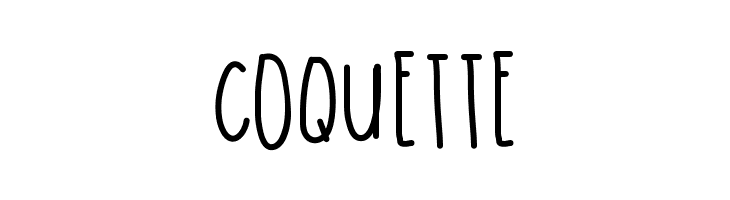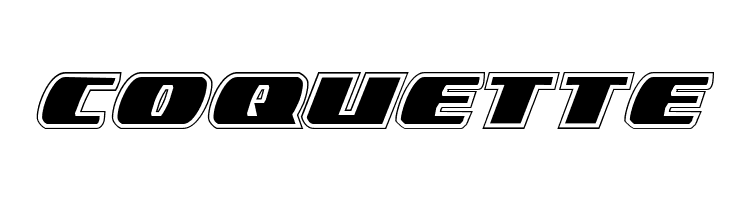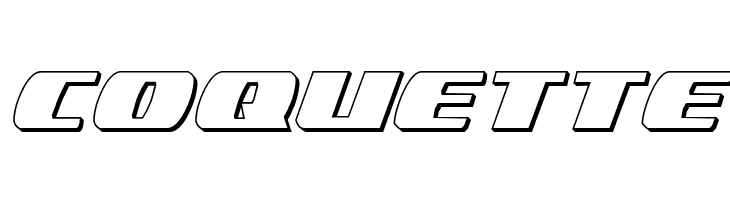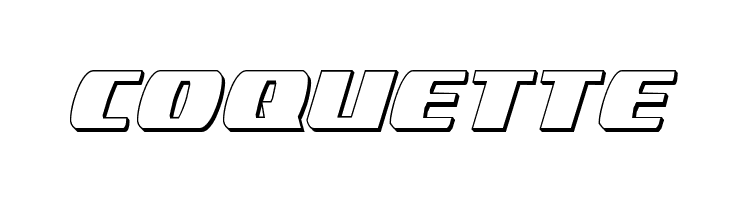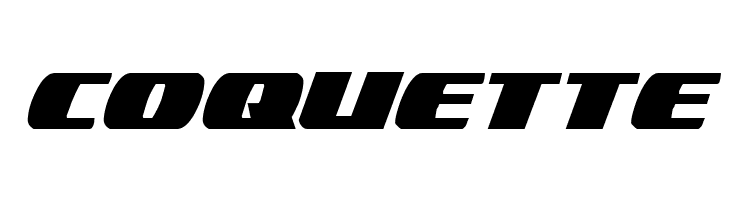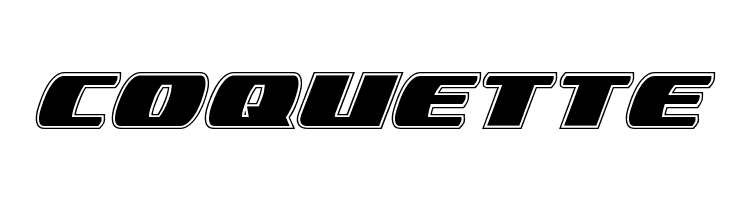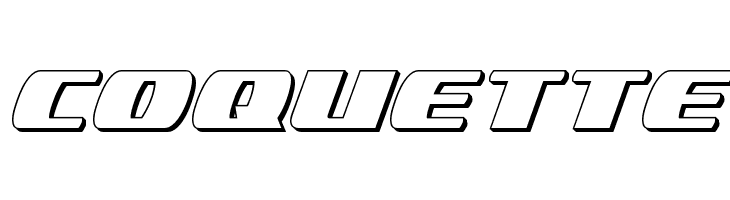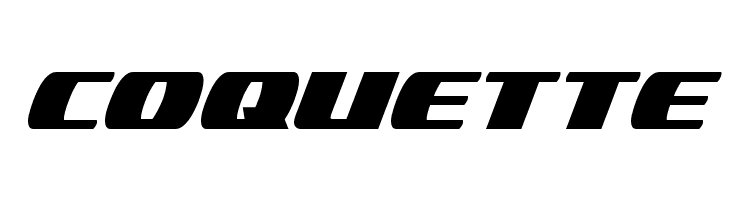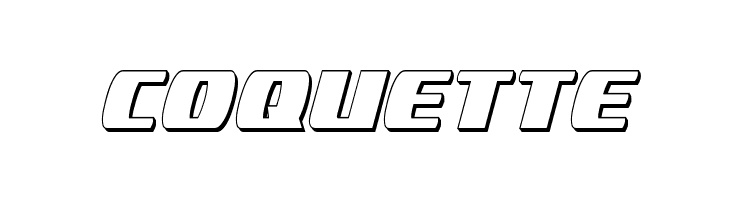
A playful handwritten font with tall, narrow letters and a casual style.
A bold, slanted font with a dynamic and modern style.
A bold, 3D outlined font with a modern, geometric style.
A bold, 3D, condensed font with a modern geometric design.
A bold, 3D, expanded font with geometric and angular design.
A bold, 3D, extra-condensed font with outlined characters and a modern, angular style.
A bold, 3D font with a futuristic and dynamic style.
A bold, slanted font with outlined characters and a modern, dynamic style.
A bold, dynamic font with a slanted, outlined style ideal for impactful designs.
A bold, slanted font with a modern and dynamic style.